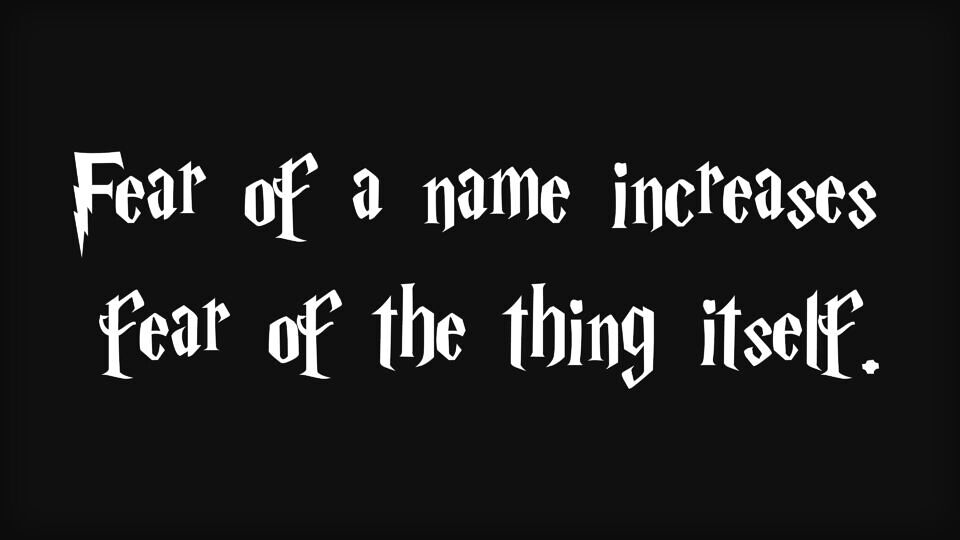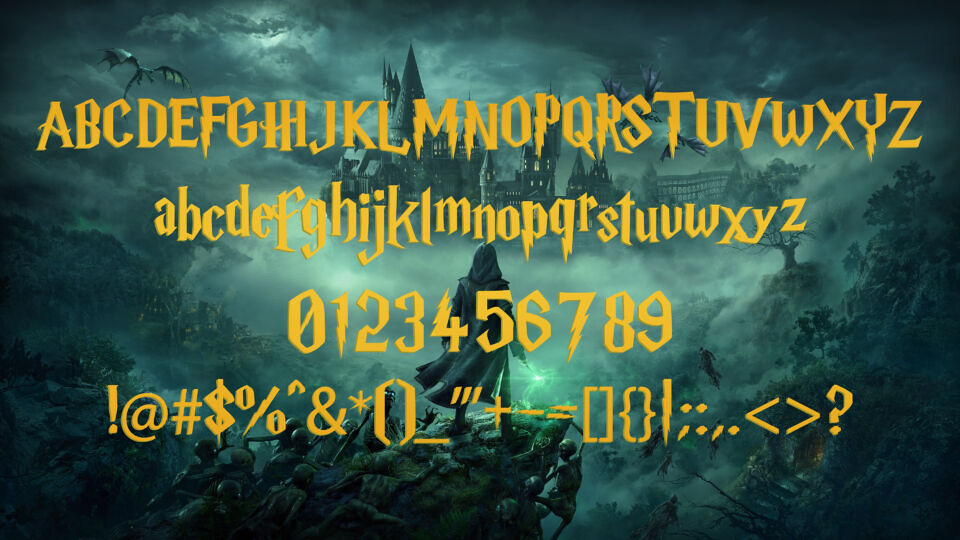
Harry P Font is a whimsical, magical typeface inspired by the Harry Potter series. Its elegant, serif letters feature subtle curves and flourishes, mimicking the charm of handwritten wizardry.
Available in a single, enchanting style, this font blends gothic influences with a playful twist, perfect for themed invitations, fan art, or mystical designs. The slightly irregular letterforms add a handcrafted feel, evoking the spirit of spellbooks and Hogwarts letters.
Harry P Font casts a spell of nostalgia and wonder, making every word feel like a portal to a magical world.